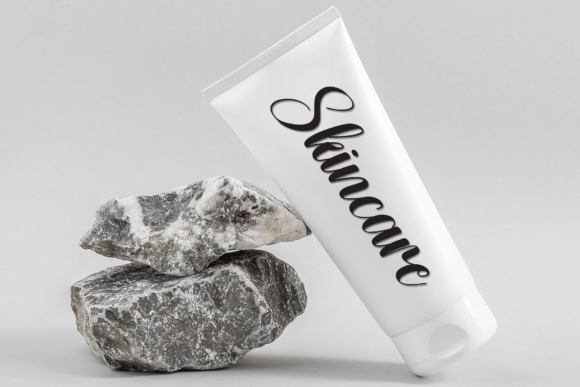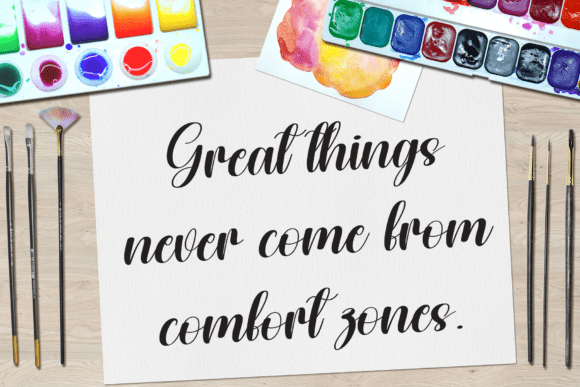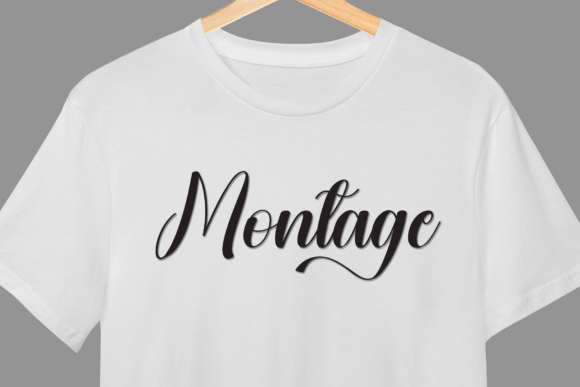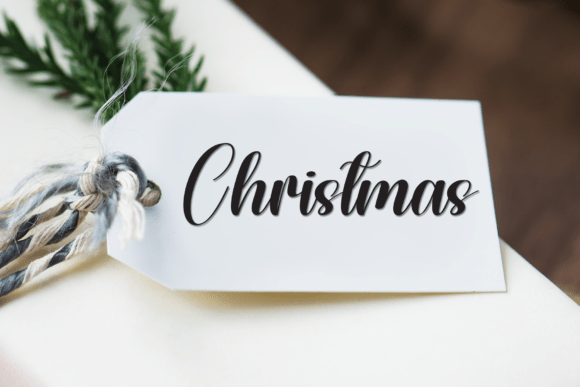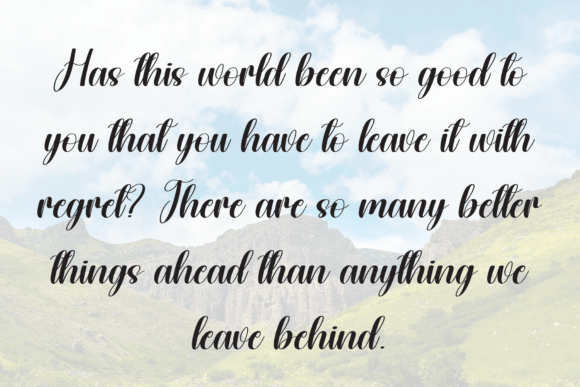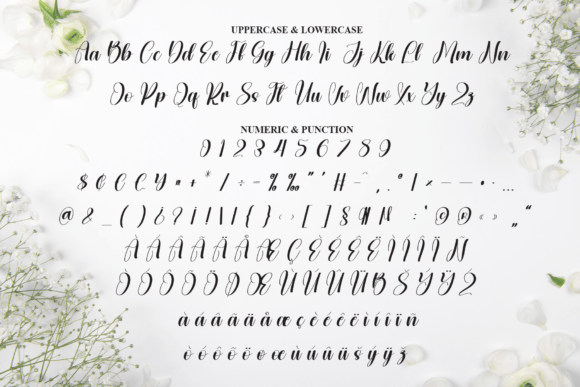
The Perfect Script for Timeless Elegance
As designers, we’ve all been there – staring at a blank page, trying to find the perfect font to capture the essence of our vision. And then, it happens. A font catches our eye, and suddenly, our creative wheels start turning. For many, that font is Britney Font – a beautifully classic and bold handwritten script that exudes romantic sophistication and high-contrast styling.
Britney Font is more than just a pretty face; it’s a powerful tool for designers looking to add a touch of luxury and refinement to their projects. From luxurious wedding invitations to refined product packaging, this font is an exceptional choice for any design where a dramatic yet elegant script is desired.
Britney Font Key Features
- Unique Characteristics: The font features a distinctive, handwritten style with dynamic letter connections and subtle flair, making it ideal for creative and expressive designs.
- Font Style: Britney Font is available in Regular and Bold styles, providing versatility for different design applications and emphasis.
Britney Font Review
As a designer, I was excited to dive into the Britney Font and see what it had to offer. Overall, I found it to be a solid, yet unremarkable choice for typography.
- Legibility: Britney Font is highly legible, making it easy to read even at smaller font sizes.
- Neutral Aesthetics: The font’s neutral style makes it suitable for a wide range of designs, from modern to classic.
- Lack of Distinctiveness: The font’s neutral style makes it easily forgettable, failing to leave a lasting impression.
- No Unique Character: Britney Font lacks a unique character or personality that sets it apart from other fonts.
- Not Ideal for Headlines: Due to its lack of distinctiveness, Britney Font is not ideal for use in headlines or titles.
Overall, Britney Font is a reliable, if unexciting, choice for typography. While it may not be the most memorable or attention-grabbing font, it gets the job done. If you’re looking for a neutral, easy-to-read font, Britney might be a good fit. However, if you’re looking for something more distinctive or attention-grabbing, you may want to consider other options.
Tips for Getting the Most Out of Britney Font
For the best results, use Britney Font in combination with bold or italic styles to add emphasis to your text. Experiment with different font sizes to create visual interest. You can also use Britney Font in conjunction with other fonts to create a unique and eye-catching design.
Britney Font is ideal for use in fashion, beauty, and lifestyle designs. It can also be used in social media graphics, blog posts, and marketing materials to add a touch of elegance and sophistication.